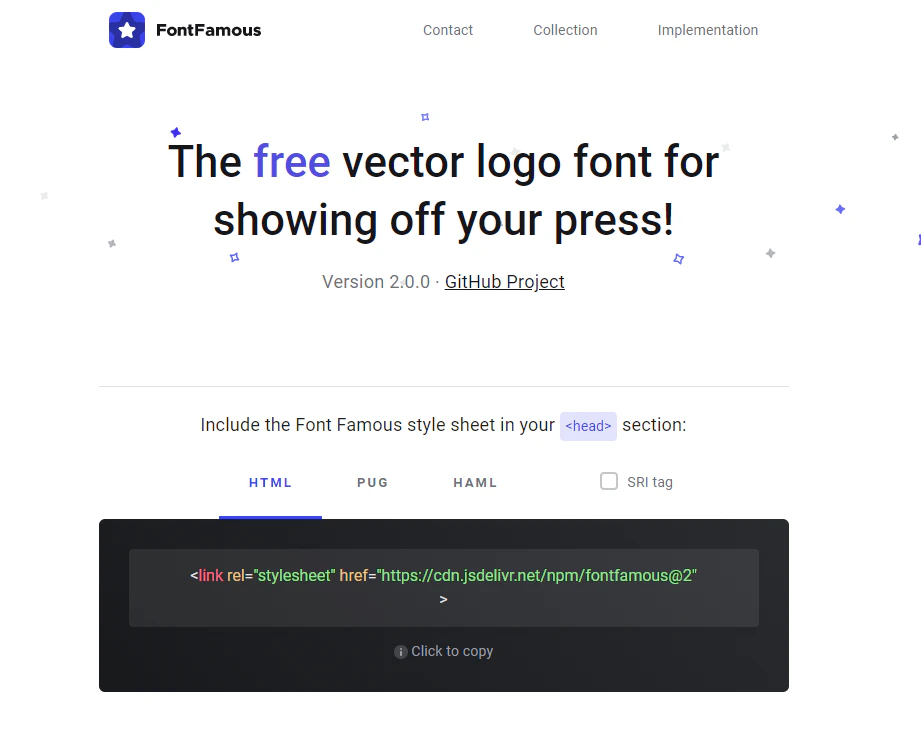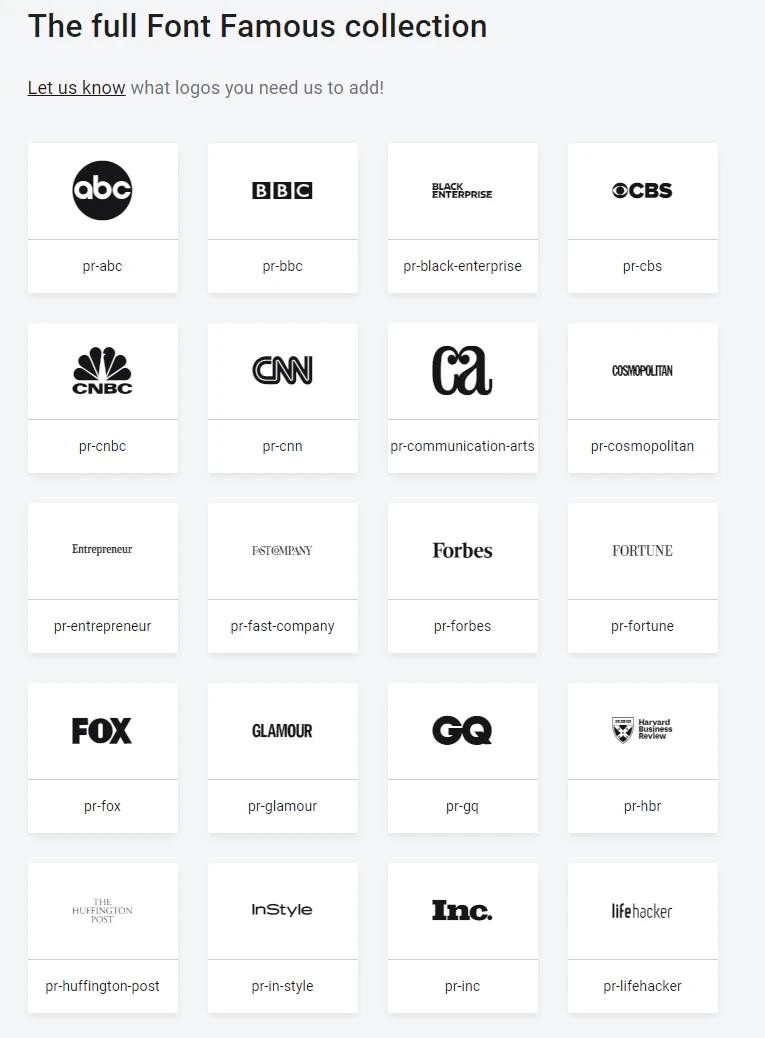
Font Famous
Font Famous is a free vector logo font designed for easily displaying media and press logos on websites with just a couple lines of CSS. It helps users avoid time-consuming manual formatting of logos by providing a comprehensive collection of iconic media brand logos as scalable vector icons. The tool is web-based and ideal for developers and designers looking to showcase press mentions cleanly and efficiently.